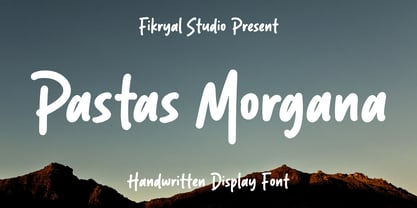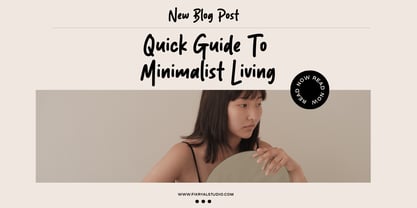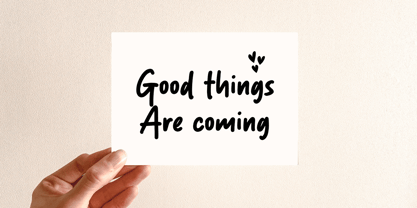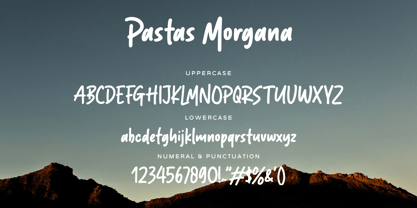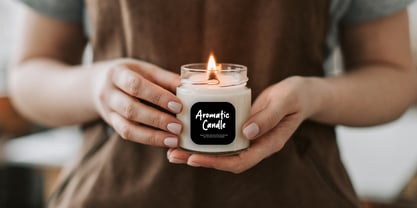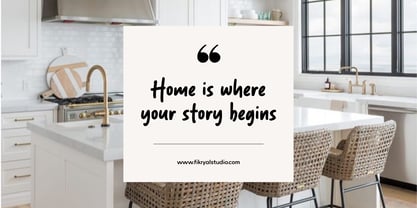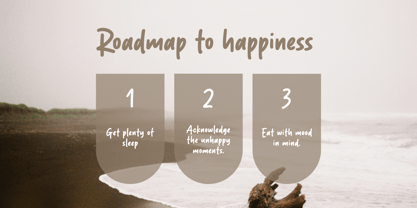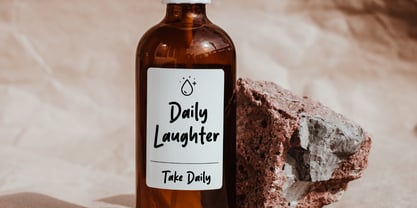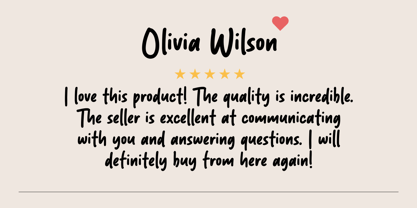
Pastas Morgana
by Fikryal
The Pastas Morgana Font Family was designed by Muhammad Fikry and published by Fikryal. Pastas Morgana contains 1 styles. More about this family
Meet Pastas Morgana – Handwritten Display Font, a bold and artistic font designed to bring handcrafted personality into your creative projects. With its playful strokes and natural flow, this font adds a unique touch to any design. Whether you’re building a branding identity, product packaging, social media content, advertising, invitations, or merchandise, Pastas Morgana helps your message stand out. ✨ What’s Included: Uppercase & lowercase letters Numbers & punctuation Multilingual support Works on both Mac & Windows 💡 Perfect For: Logo & branding projects Product packaging (food, fashion, cosmetics, lifestyle) Posters & social media posts Greeting cards & invitations Merchandise & apparel Bring a handcrafted vibe and bold expression to your designs with Pastas Morgana – Handwritten Display Font. If you have any questions please don’t hesitate to contact me follow my Instagram: fkryall Thank you